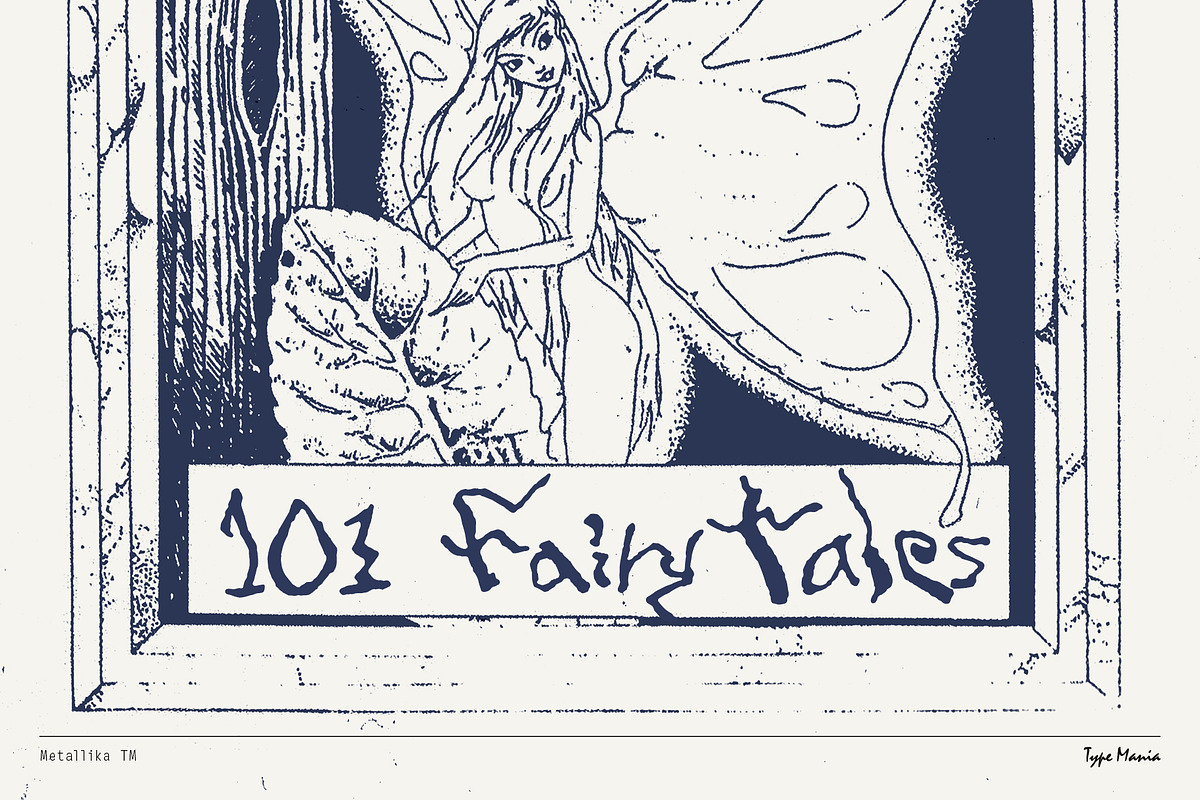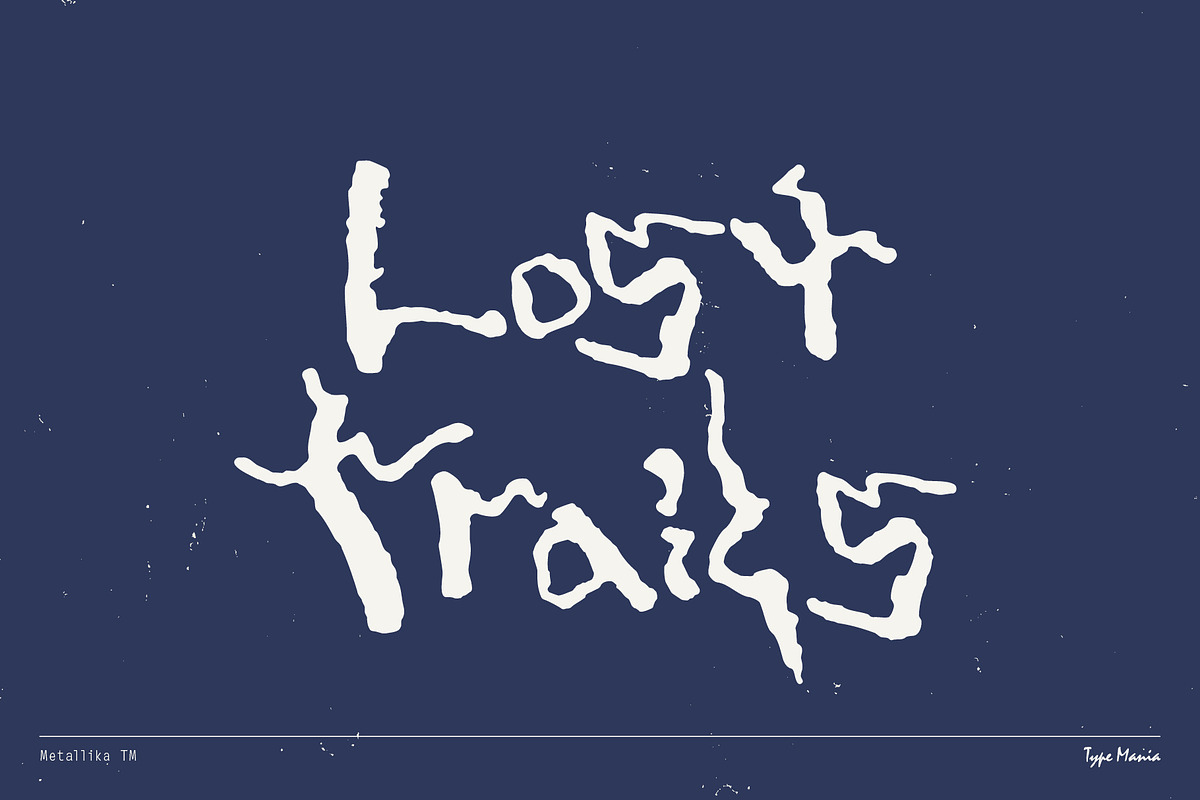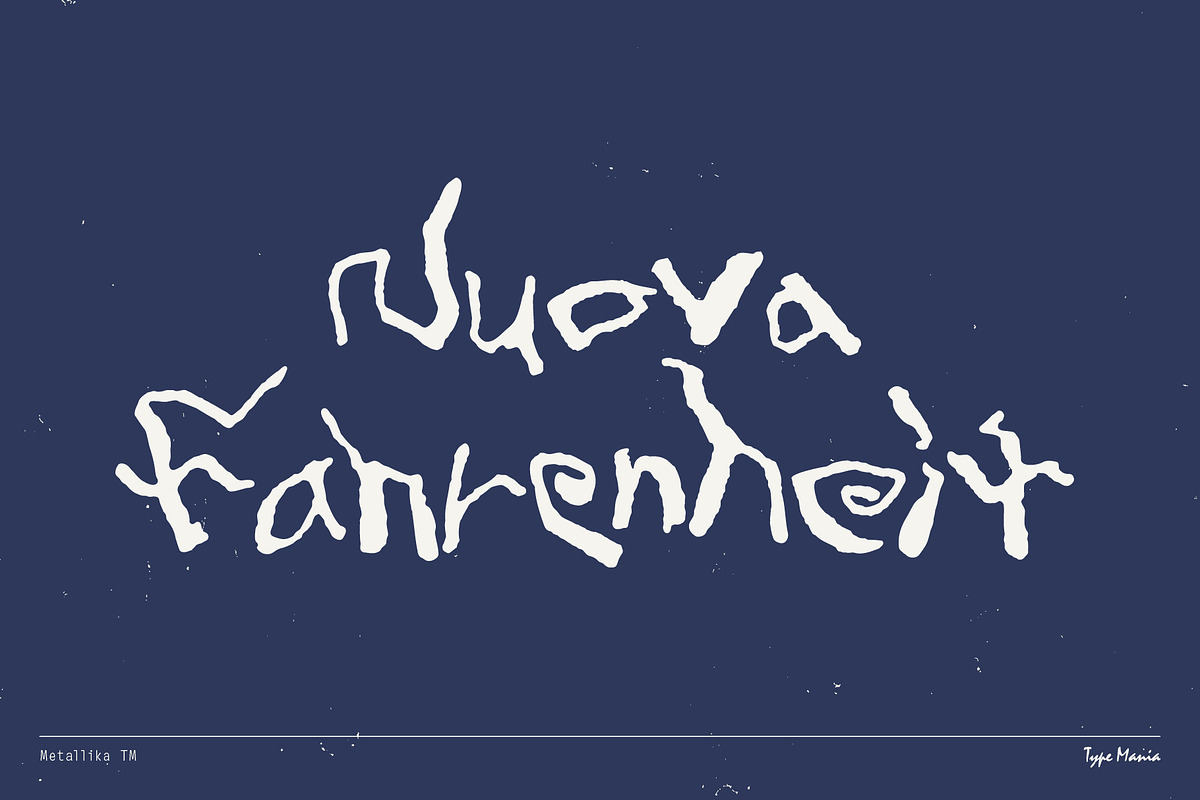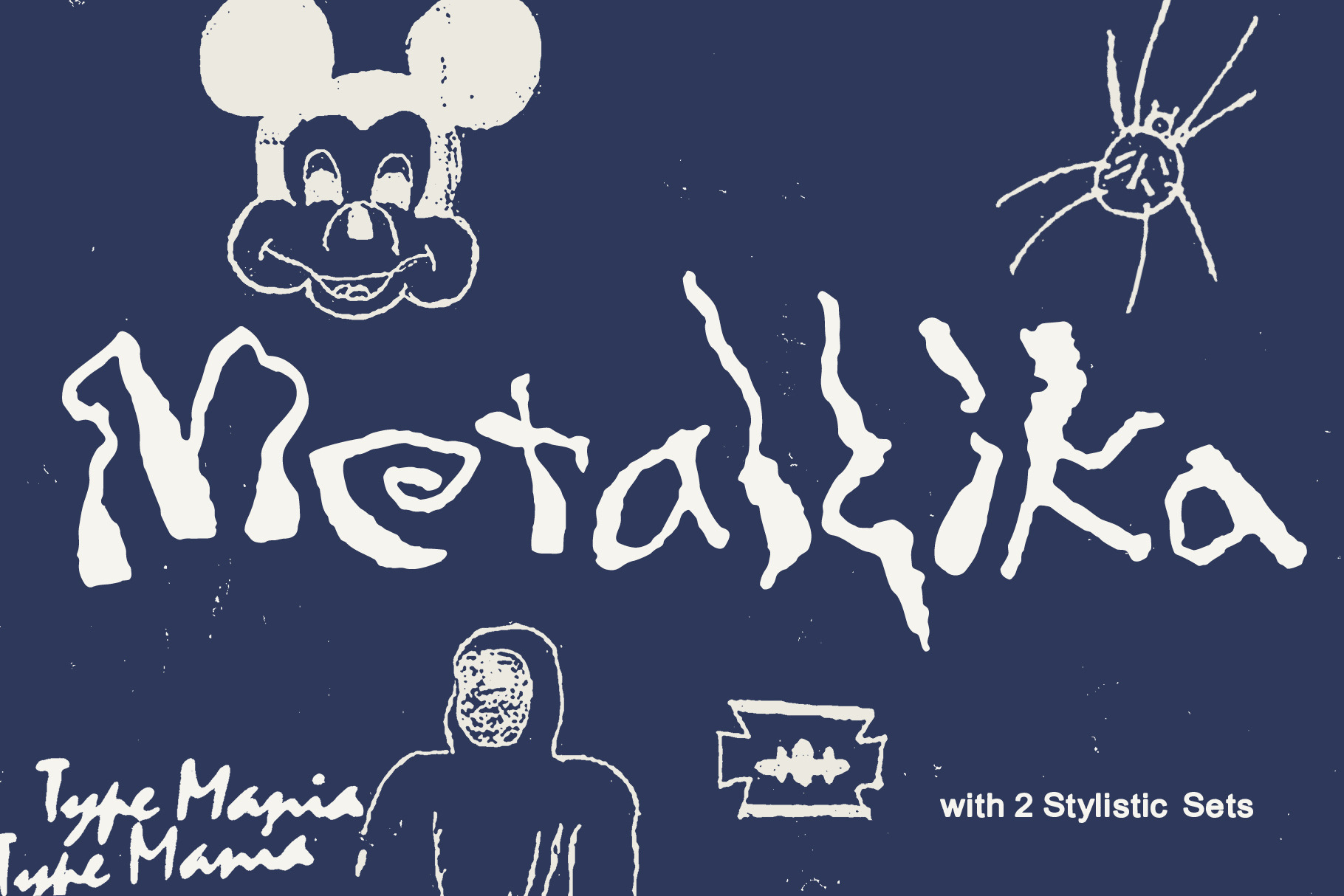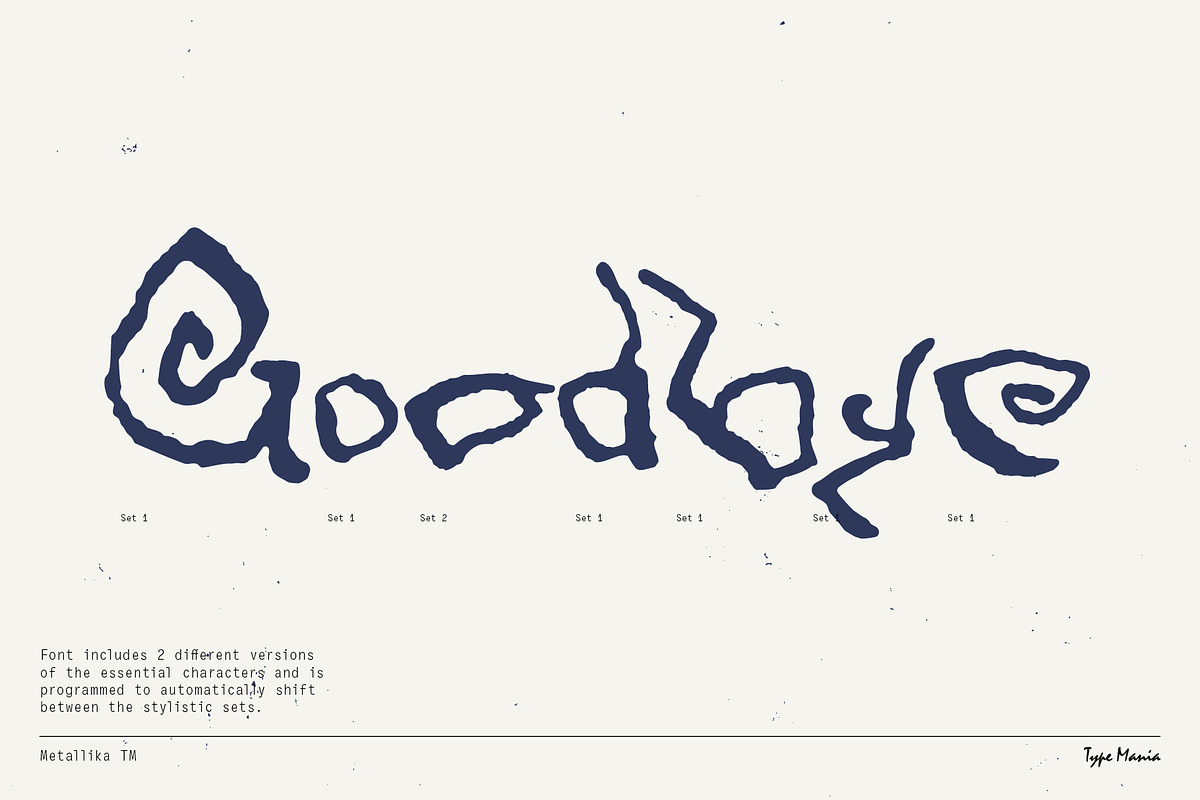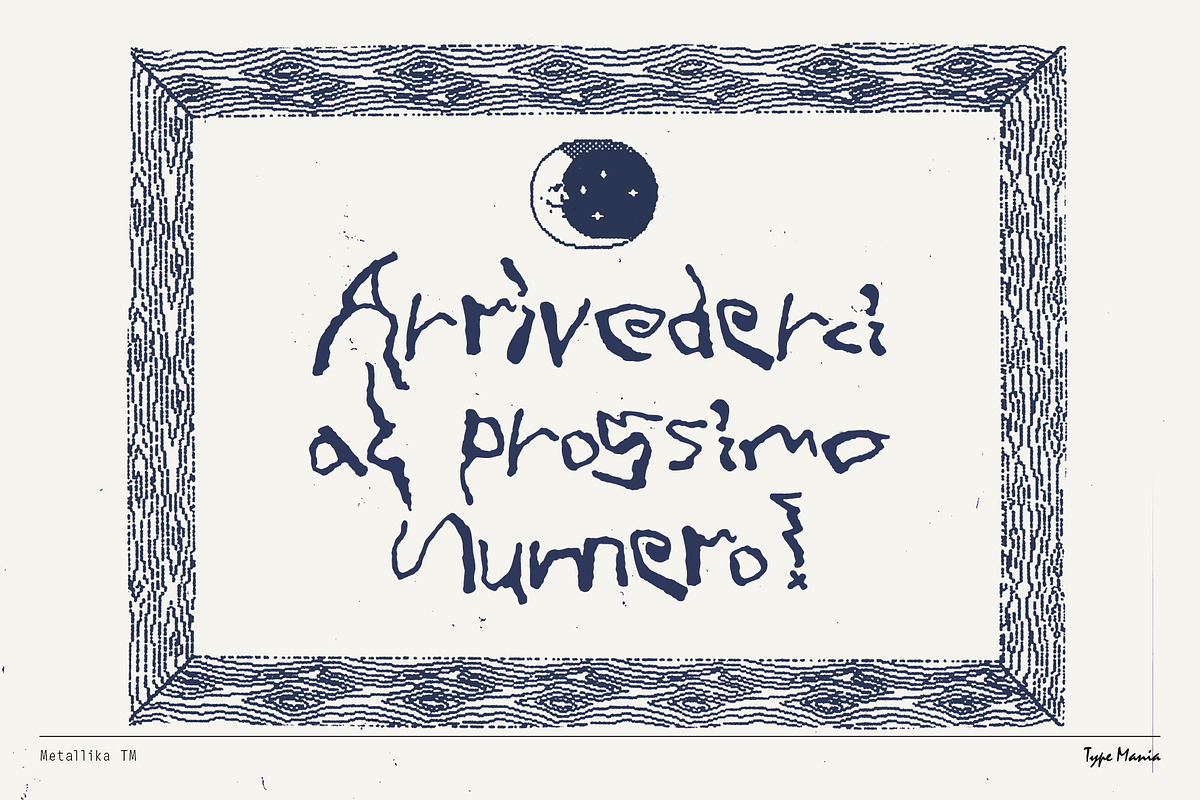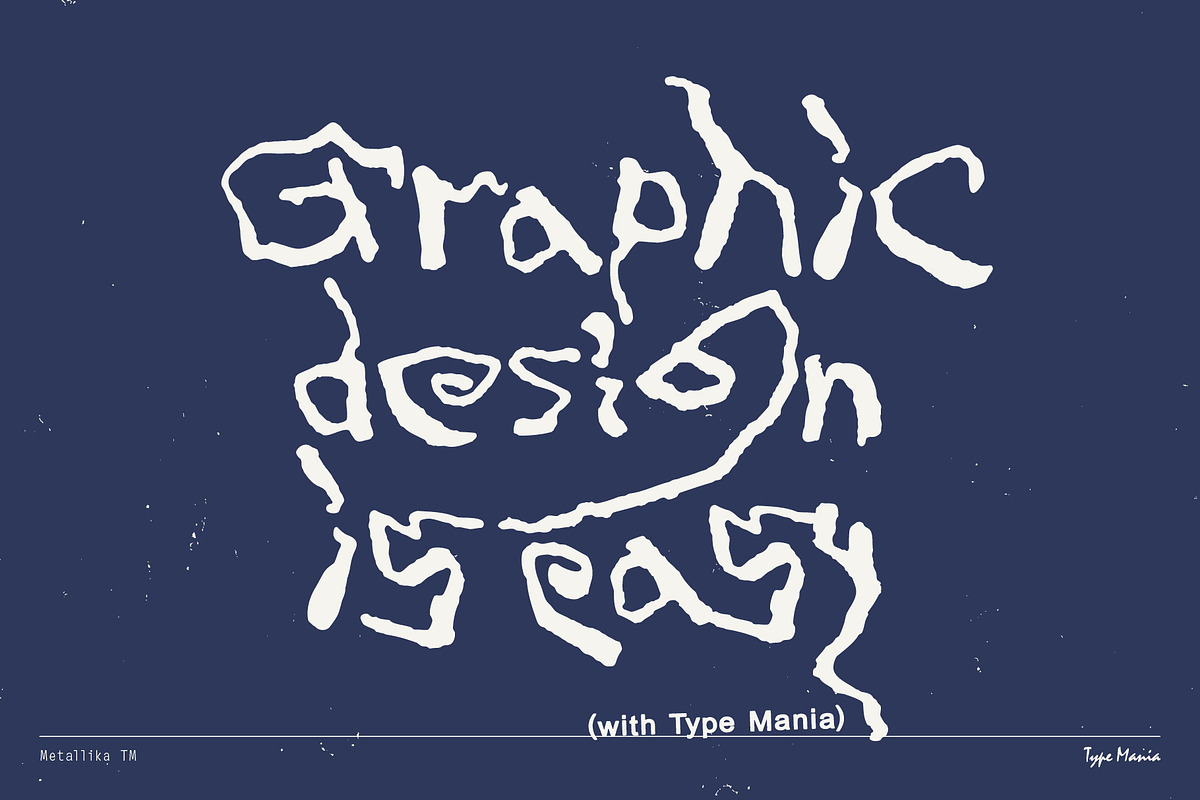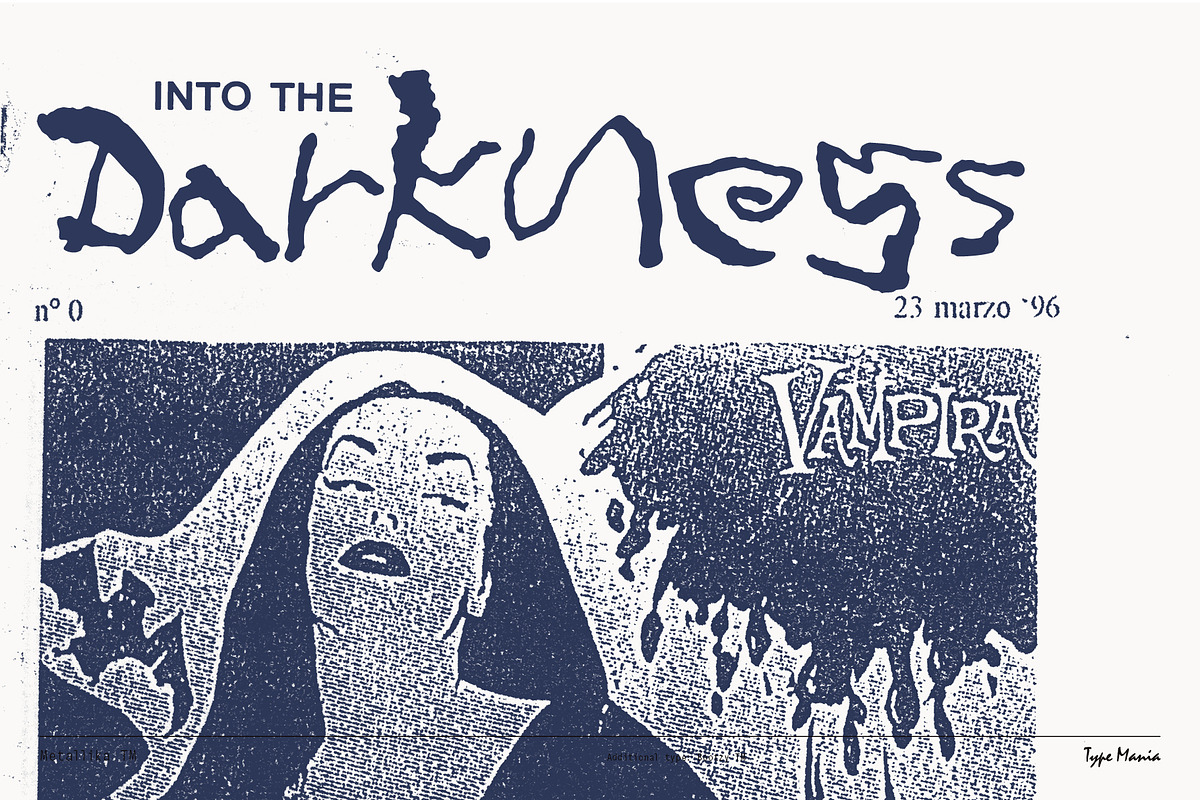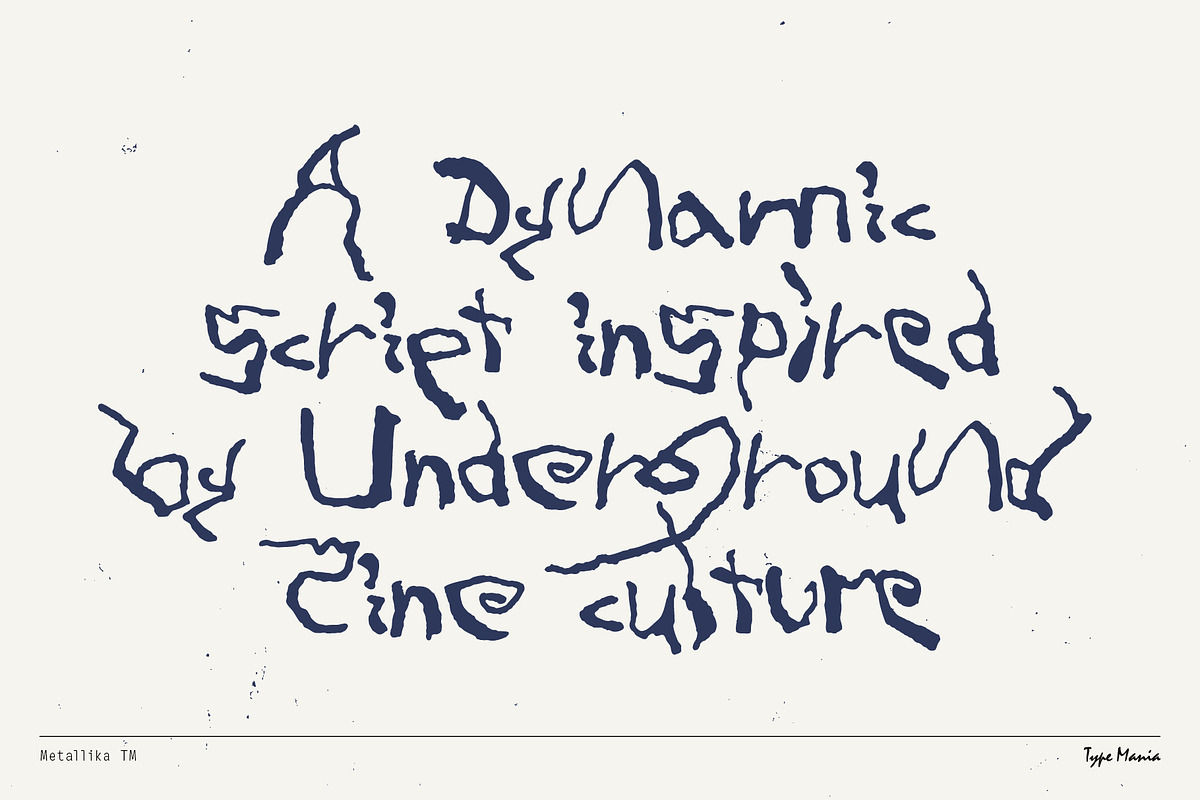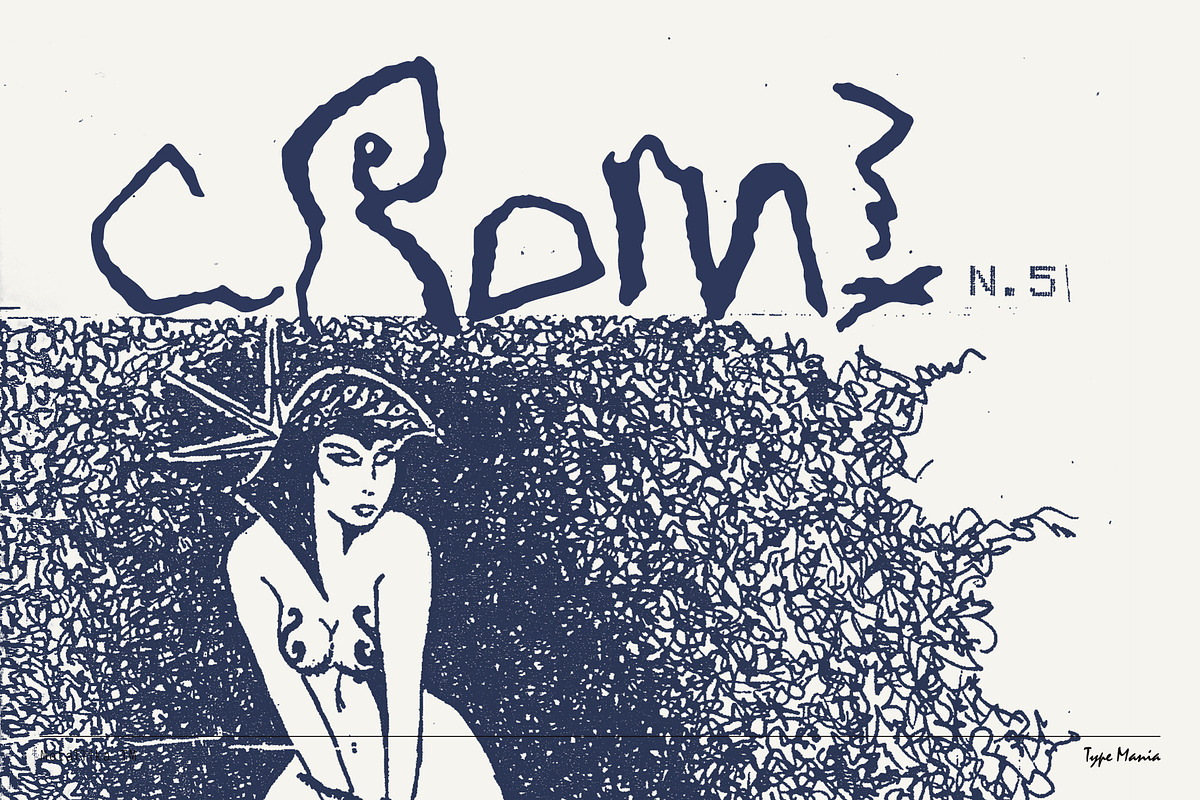
Metallika TM – Wicked Script Font
Whether you're summoning the spirits of the abyss or guiding souls to higher planes, Metallika TM adapts to your creative vision with ease. Elevate your album covers, posters, merchandise, and beyond with the unparalleled versatility of Metallika TM 😈
OpenType features
- 2 stylistic sets
- The font is programmed to automatically shift between the stylistic sets whenever the same glyphs are typed side by side